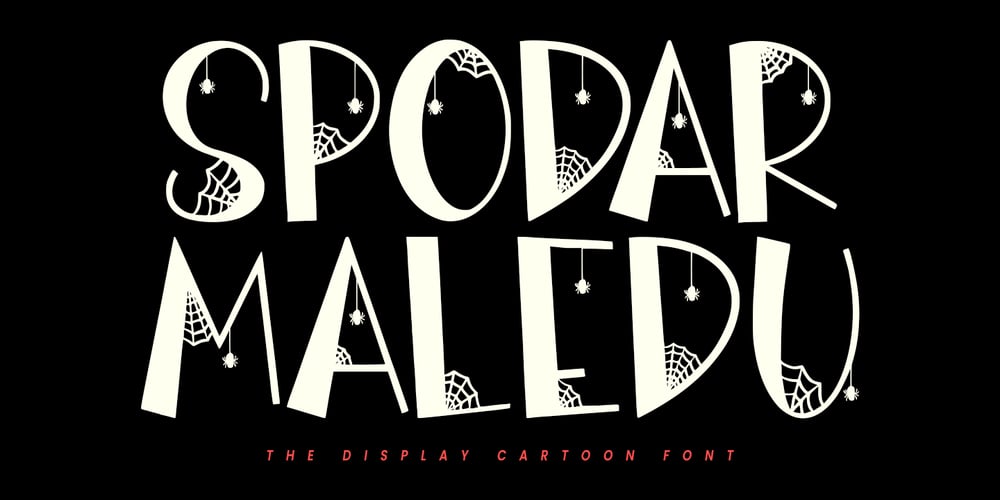
MC Spodar Maledu Font Family was designed by Gilang Maulana and published by Maulana Creative. MC Spodar Maledu contains 1 styles and family package options. Spodar Maledu is a Horror Vibe Decorative display font. With Medium Sharp stroke, Upright and fun character with a bit of alternates. To give you an extra creative work. Spodar Maledu font support multilingual language. This font is good for logo design, Social media, Movie Titles, Books Titles, a short text even a long text letter and good for your secondary text font with Script. Make a stunning work with Spodar Maledu font.Cheers,Maulana Creative